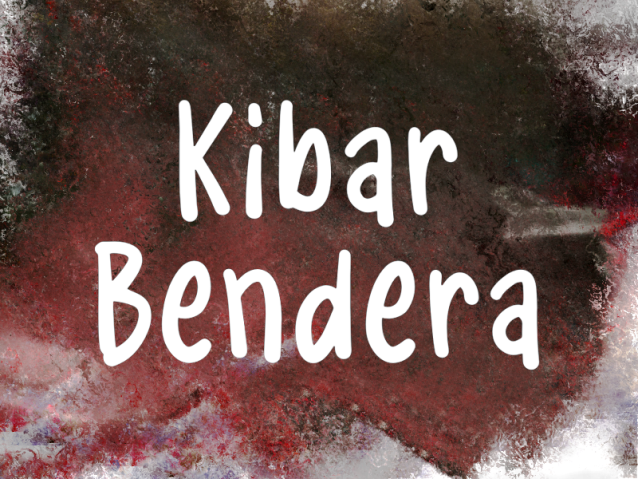
Kibar Bendera Font is a simple and friendly handwritten font. Its natural and unique style makes it incredibly fitting to a large pool of designs. The only limit is your imagination!
Kibar Bendera Font
| Classification: | Handwritten Fonts, Playful / Fun Fonts, Style / Aesthetic Fonts |